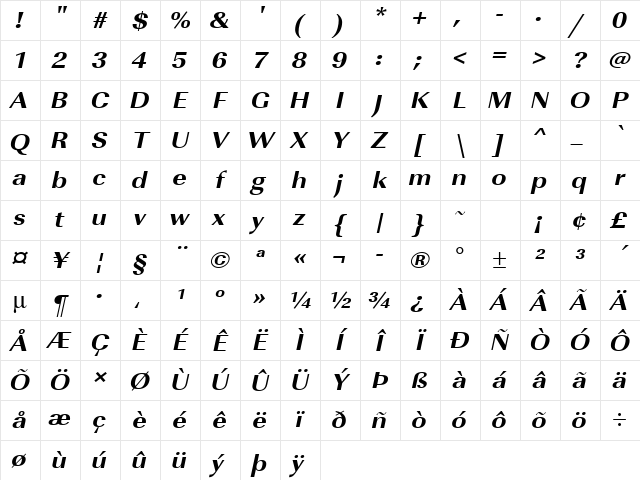
URWImperialTExtBolExtWid Oblique Free Font
URWImperialTExtBolExtWid Oblique
Style: Oblique
Design Context for URWImperialTExtBolExtWid
URWImperialTExtBolExtWid is a composed and adaptable typeface that performs quietly and consistently across a wide range of design contexts. The slanted form adds forward momentum and visual energy.
Pro Tip: Use URWImperialTExtBolExtWid for emphasis, pull quotes, and subheadings where its slanted energy can add rhythm to the layout.